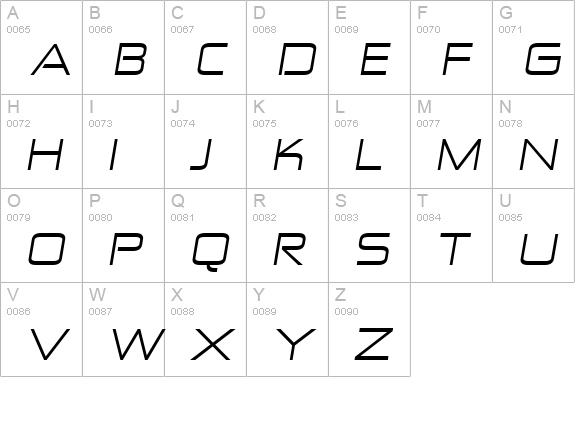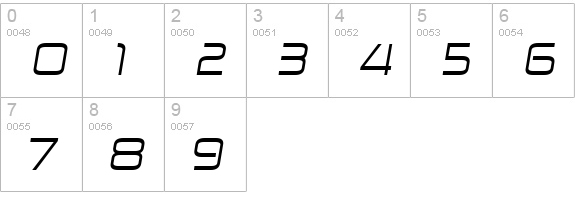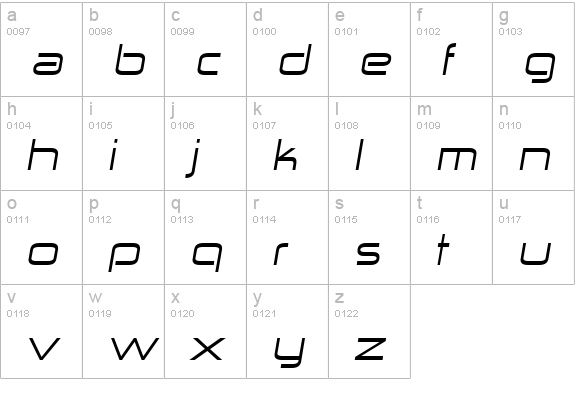
Zekton Ex Italic Font Details
Zekton Ex Italic is a distinctive, italic variant in the Zekton typeface family \xE2\x80\x94 well suited to design and typography projects.
Zekton Ex Italic font is a bold and dynamic typeface that exudes modernity and sophistication. Its slanted design adds a touch of elegance and flair to any project, making it perfect for headings, titles, and other attention-grabbing text. The sleek lines and sharp angles of Zekton Ex Italic give it a contemporary edge that commands attention. This versatile font is ideal for a wide range of design projects, from branding and advertising to web design and editorial layouts. Its unique style makes a statement while remaining highly readable and engaging. Zekton Ex Italic is sure to make your text stand out and leave a lasting impression on your audience. Best of all, Zekton Ex Italic is free to download at FontsMarket.com. This means you can easily access this stunning font and incorporate it into your projects without any hassle. Don't miss out on the opportunity to enhance your designs with the striking beauty of Zekton Ex Italic. Download it today and unleash your creativity!